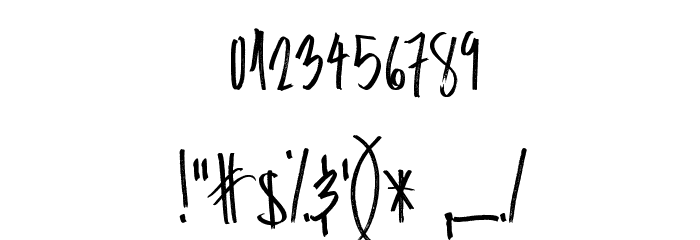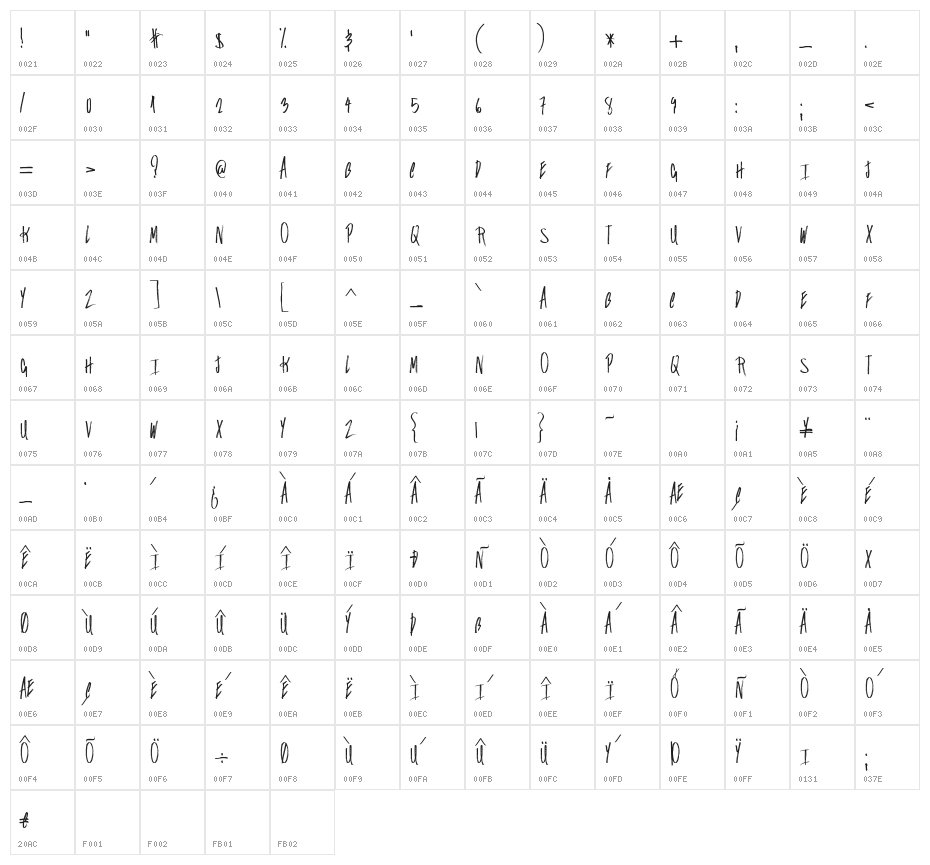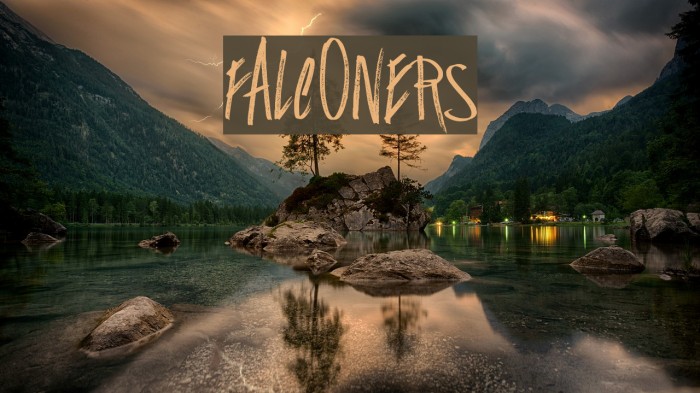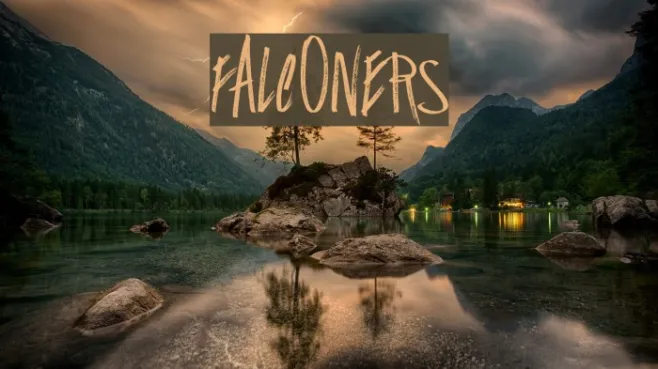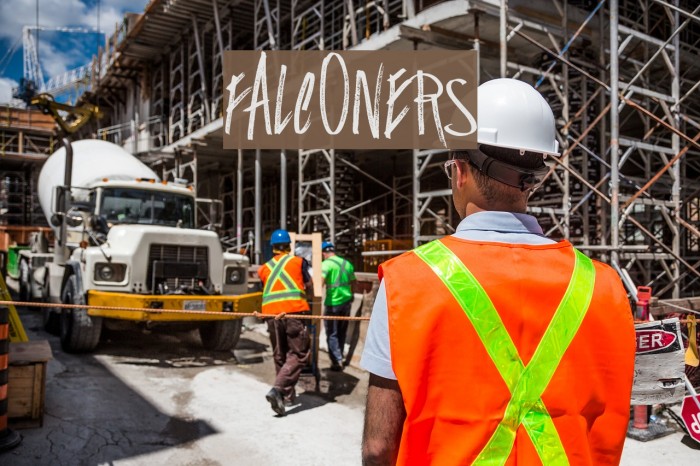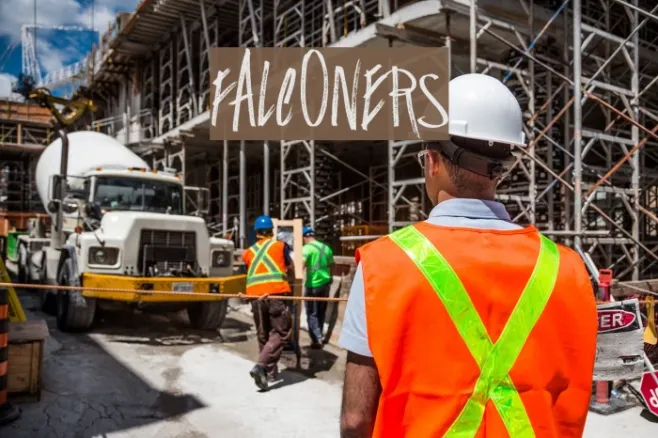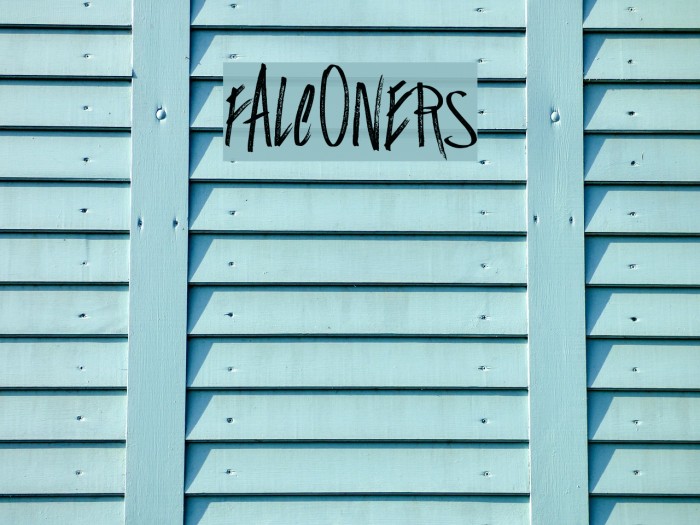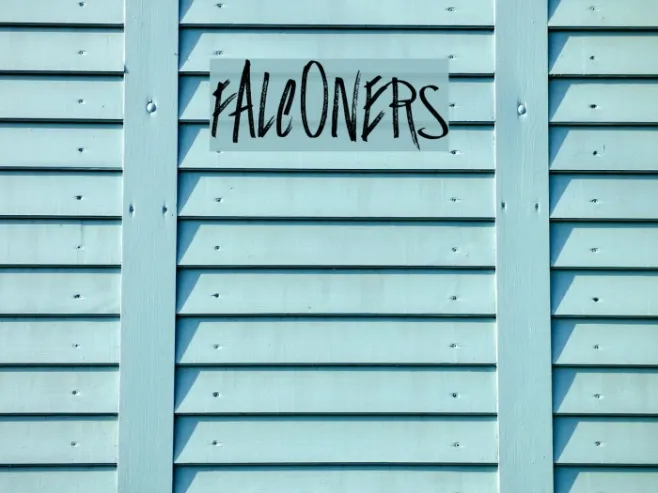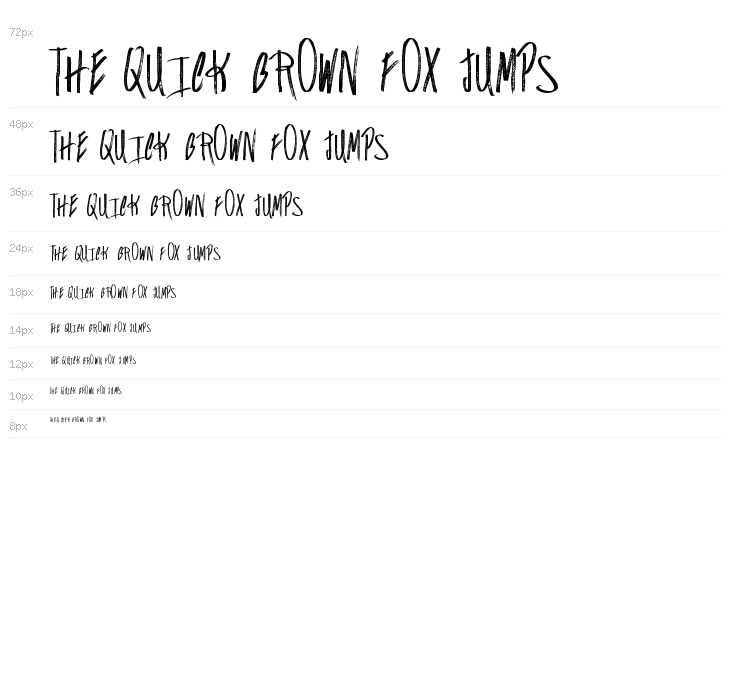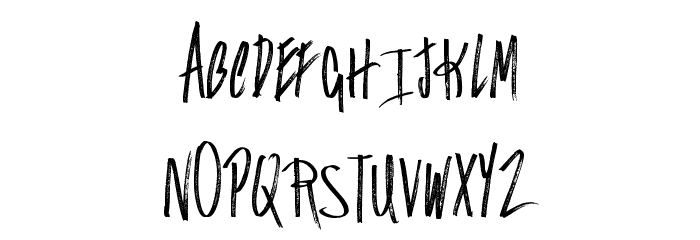
Falconers Font
Falconers Description
This font features a bold, expressive style with a hand-drawn appearance. The letters are slightly irregular, giving it a dynamic and energetic feel. The strokes are varied in thickness, adding a sense of movement and texture. The uppercase and lowercase letters maintain a consistent style, while the numerals and special characters complement the overall design. This font is ideal for projects that require a personal touch or a creative flair.
| Proposed Projects | Ideal for posters, branding, social media graphics, and creative projects that need a personal touch. |